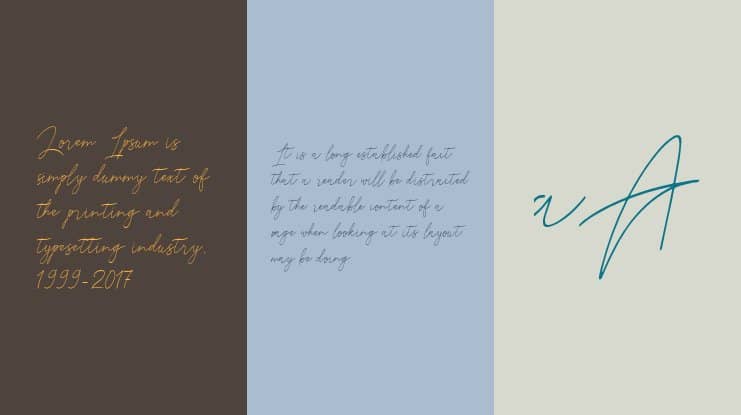
Reman Script Font Free
Reman is a normal and italic font script with a natural quality solely due to handwriting. Syaf rizal created Reman and shared it. This Font supports the following languages: Basque, Catalan, Cornish, Croatian, Czech, Danish, Dutch, Embu, English, Esperanto, Estonian, Faroese, Filipino, Finnish, French, Galician, German, Hungarian, Icelandic, Indonesian, Irish, Italian, Malay, Maltese, Manx, Maori, Meru, Morisyen, North Ndebele, North Ndebele Norwegian Bokmal, Norwegian Nynorsk, Nyankole, Oromo, Polish, Portuguese, Romansh, Serbian, Slovak, Slovenian, Spanish, Swedish, and Swiss German.
Reman Script Font is very suitable for logos, branding, invitations, stationery, wedding designs, logos, business cards, covers, shirts, social media posts, and more. It will also be used to create an awesome image, text with various types of colors and text. Add a new touch to your drawings like a graphic design master by using this lovely font.